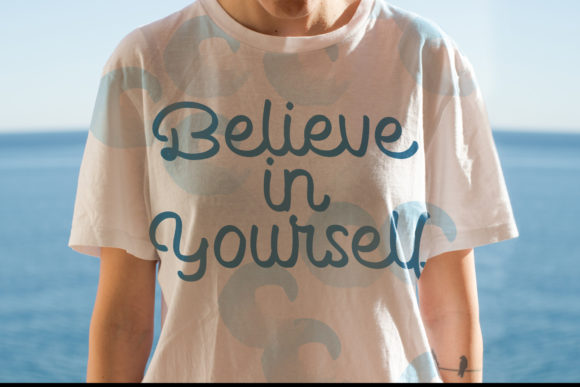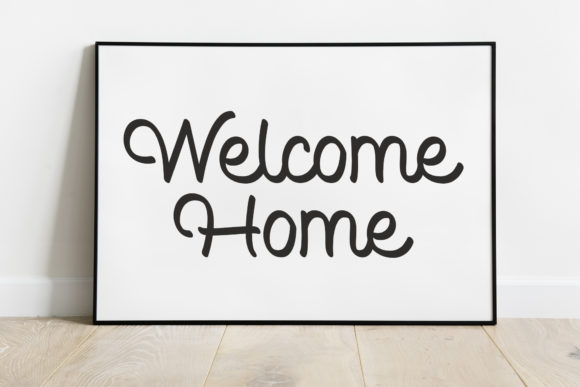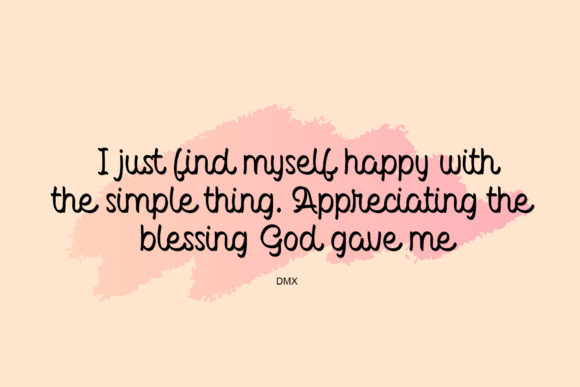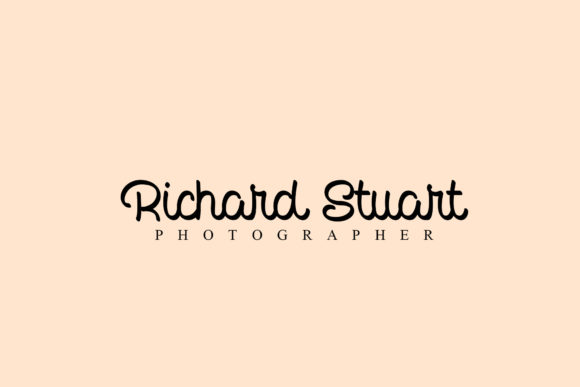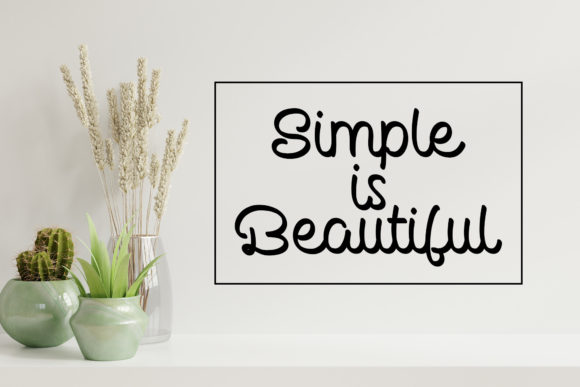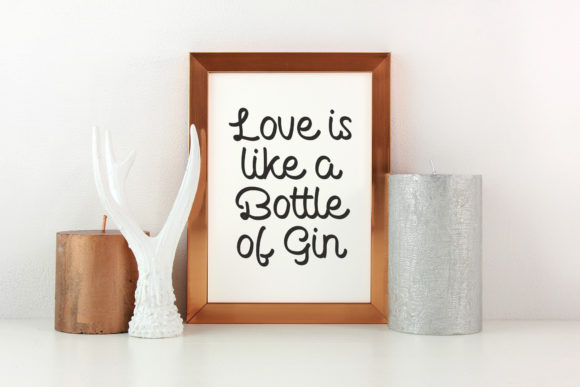
Introduction to Quick Start Font
Quick Start is a modern handwritten font that is readable and stylish.
It is defined by smooth curves and is perfect for fashion branding or editorial designs Add it confidently to your projects, and you will love the results.
Key Features of Quick Start Font